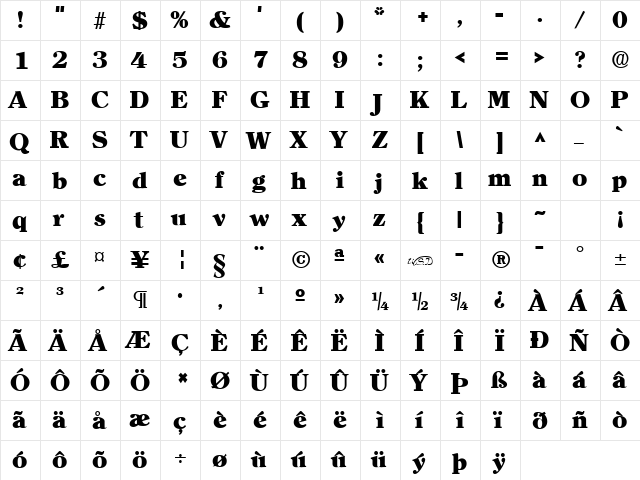
ClearlyRomanHeavy normal
Design Context for ClearlyRomanHeavy Typeface
ClearlyRomanHeavy offers clean, dependable letterforms without strong stylistic allegiance, making it a practical choice for designers who need flexibility.